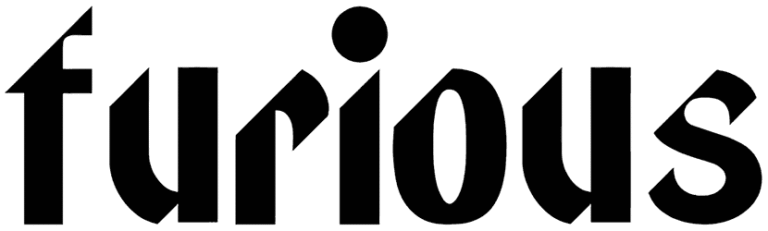
Ambrosia Font
Ambrosia is a modern gothic font that gives your typography a classic and strong look that you won’t find anywhere else. This font gives a powerful vibe to your content, which is very important for newspaper headlines, websites, posters, and rock band brands.